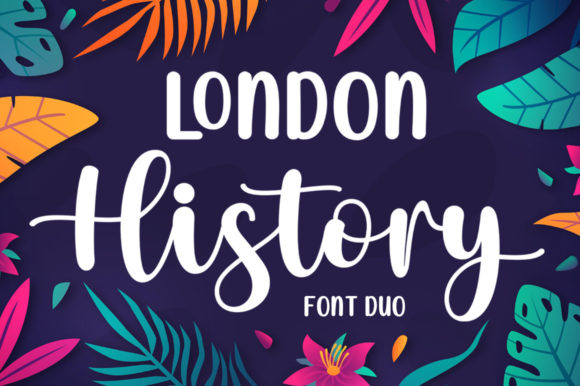
London History Duo Font, created by Attract Studio, is the epitome of elegance and sophistication. This stunning script font is designed to captivate and inspire, making it the perfect choice for all your wedding text needs. With its exquisite cursive style and flawless combination of display and script, this font will elevate your designs to new heights.
Whether you're designing wedding invitations, signage, or any other wedding-related materials, London History Duo will bring a touch of class and elegance to your projects. Its graceful curves and flowing lines will add a sense of romanticism that is sure to captivate anyone who lays eyes on it.
But London History Duo is not just limited to weddings. Its versatility extends far beyond, making it a valuable asset for any design project. From branding to packaging, this font will effortlessly enhance the visual appeal of your creations, leaving a lasting impression on your audience.
Imagine the joy and excitement your clients will experience when they receive their wedding invitations, beautifully adorned with the enchanting London History Duo Font. The intricate details and delicate strokes will make them feel like they are holding a piece of art in their hands.
London History Duo is not just a font, it's an experience. It evokes a sense of nostalgia and romance, transporting your audience to a bygone era filled with elegance and grandeur. It's the perfect choice for those seeking to create a timeless and memorable design.